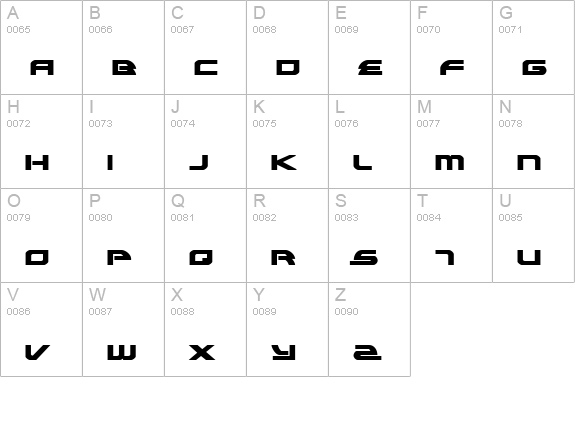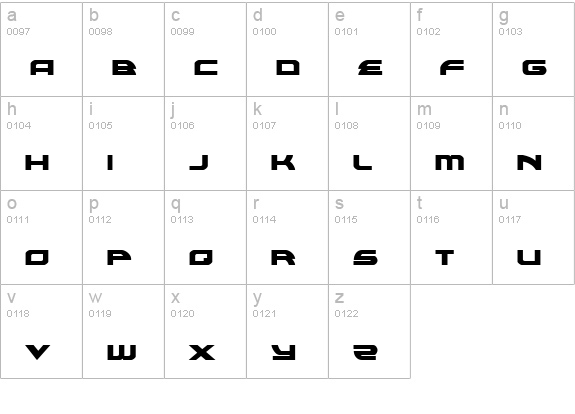
Alexis Bold is a strong, high-contrast variant in the Alexis typeface family \xE2\x80\x94 well suited to headlines, attention-grabbing titles, and strong calls-to-action.